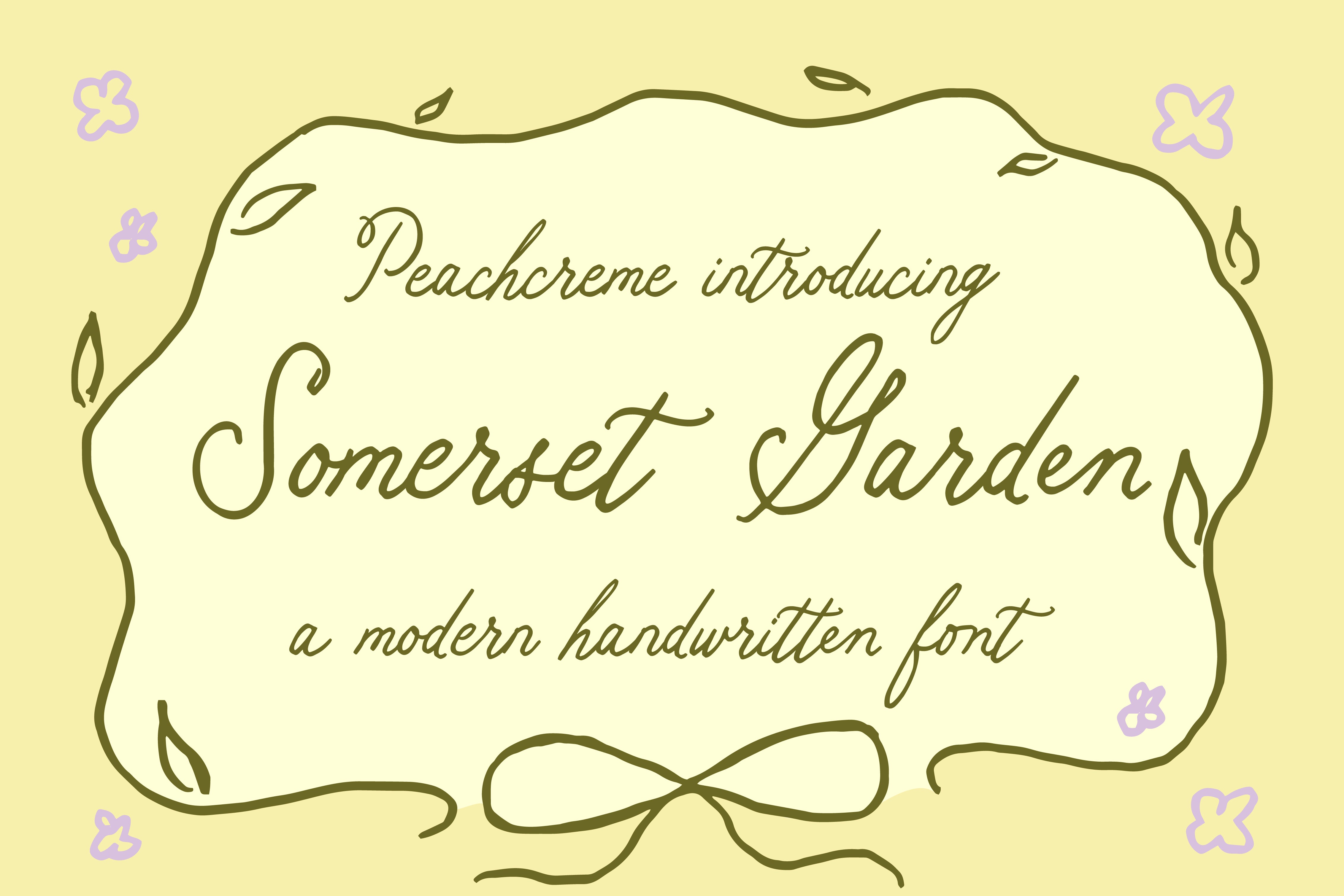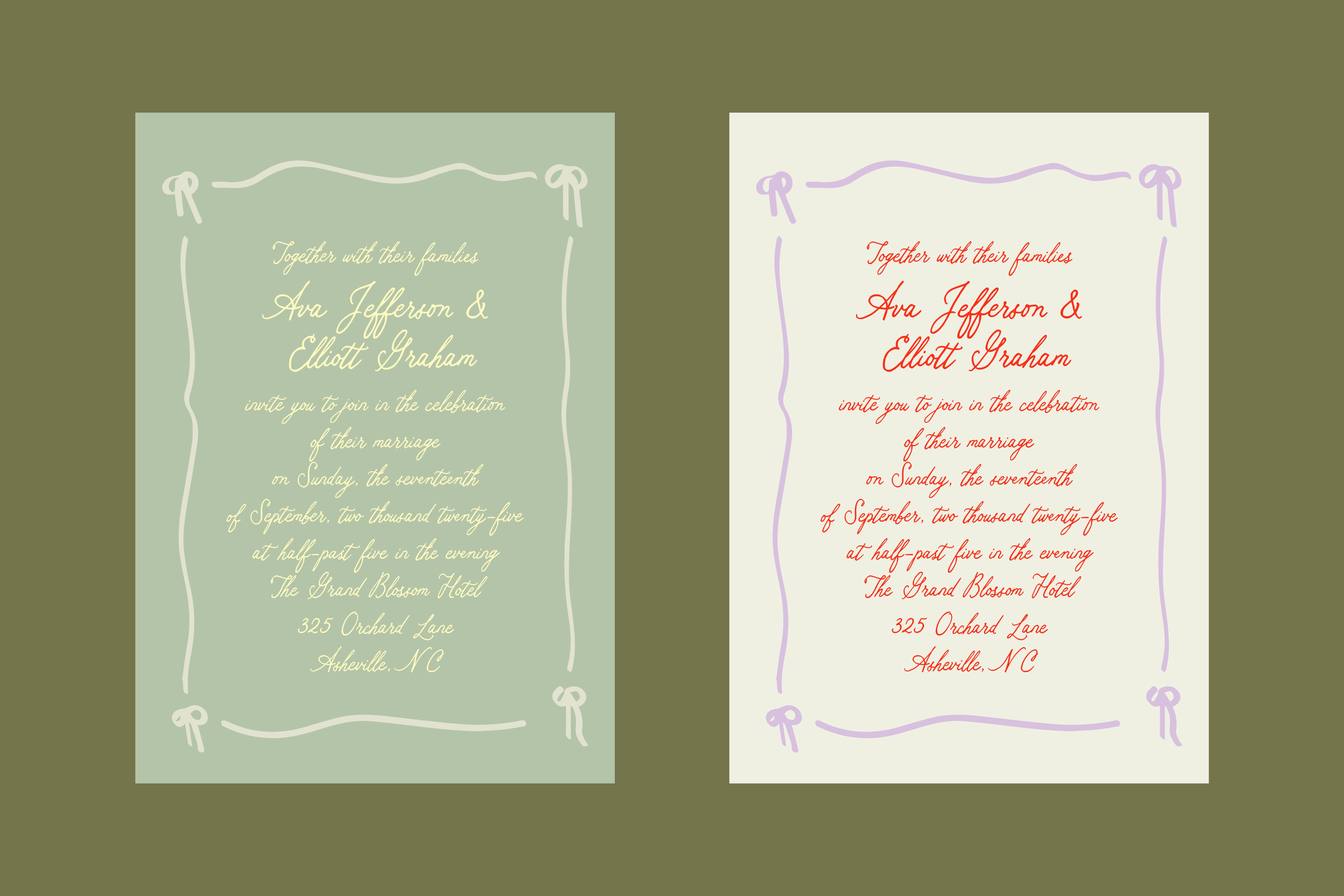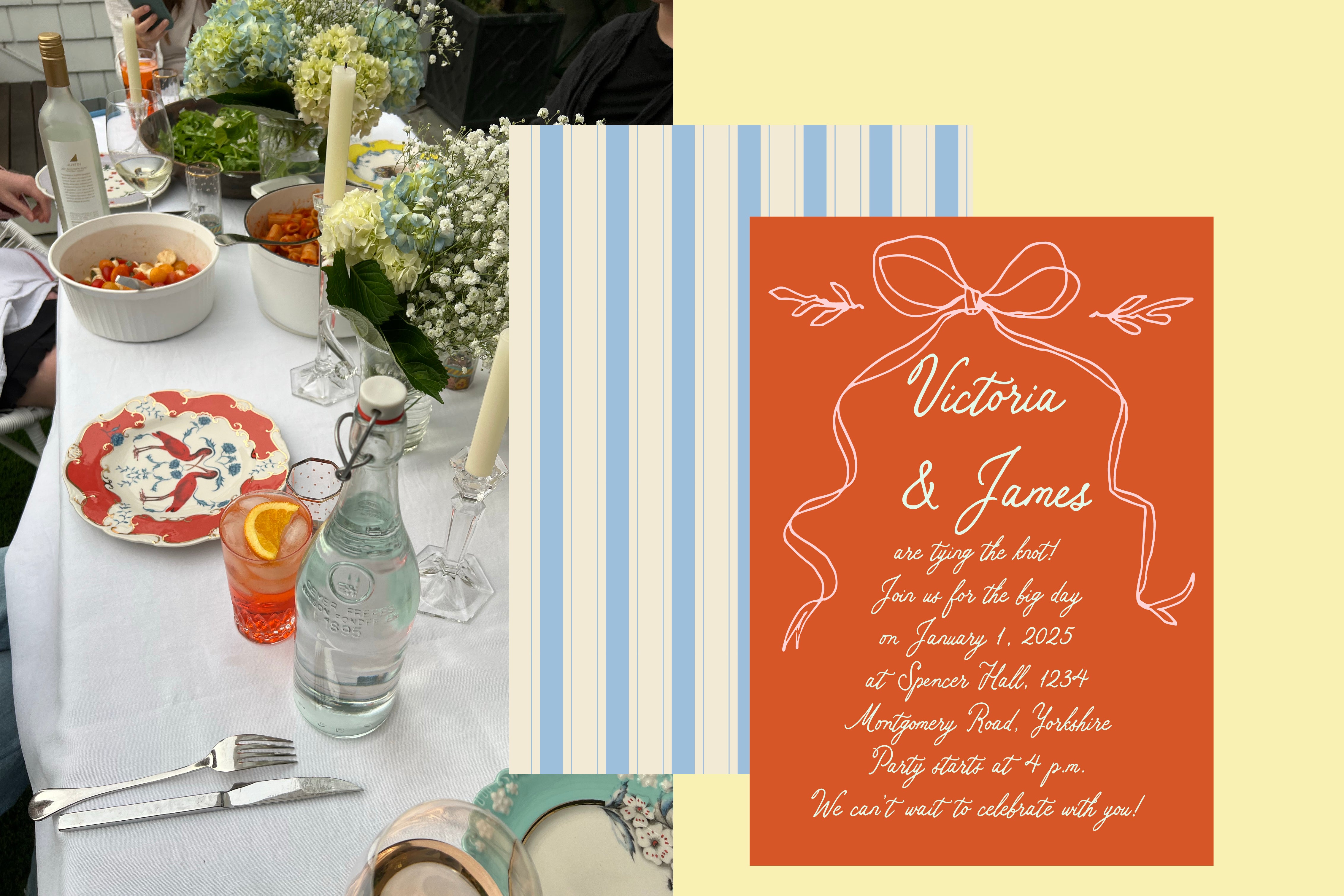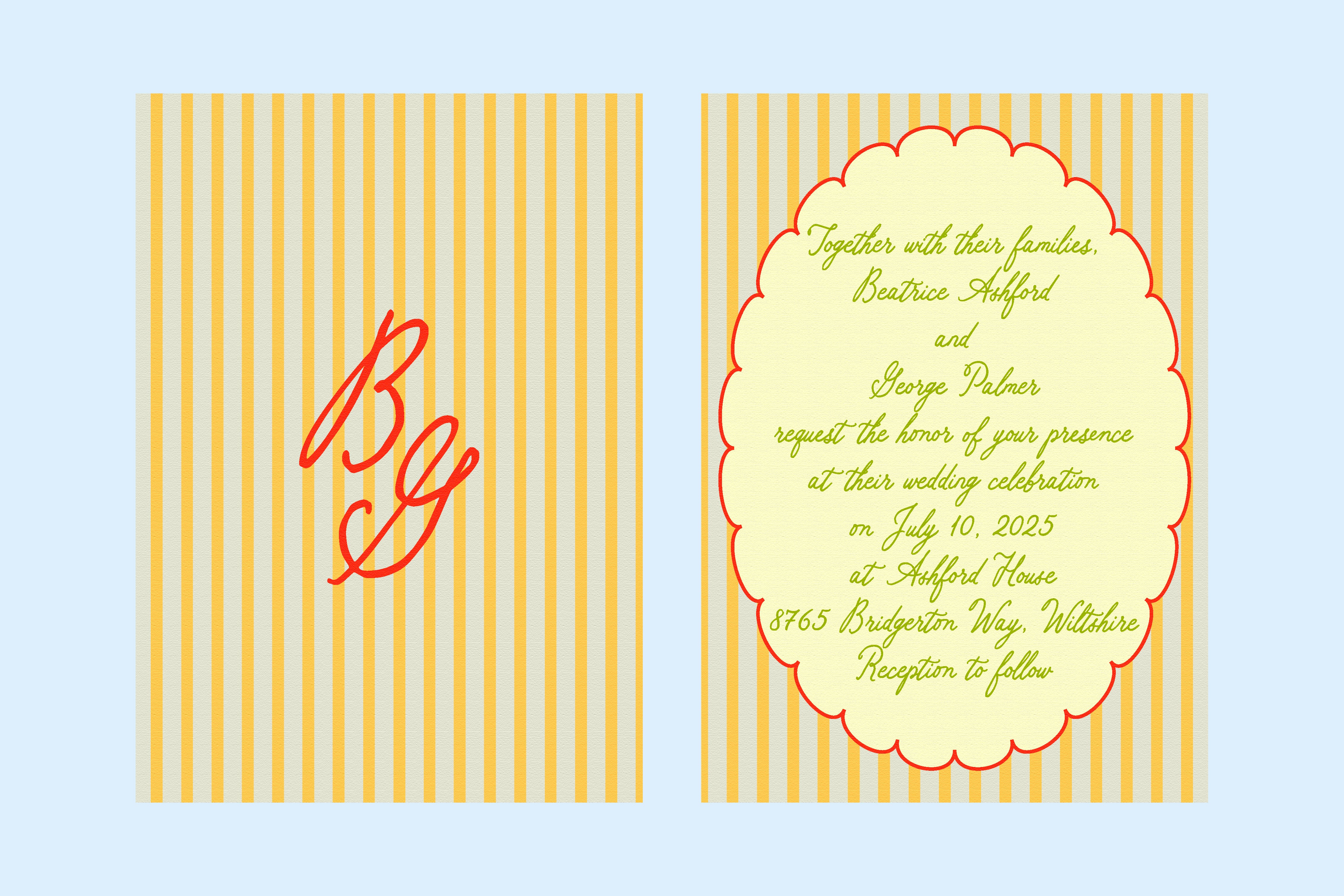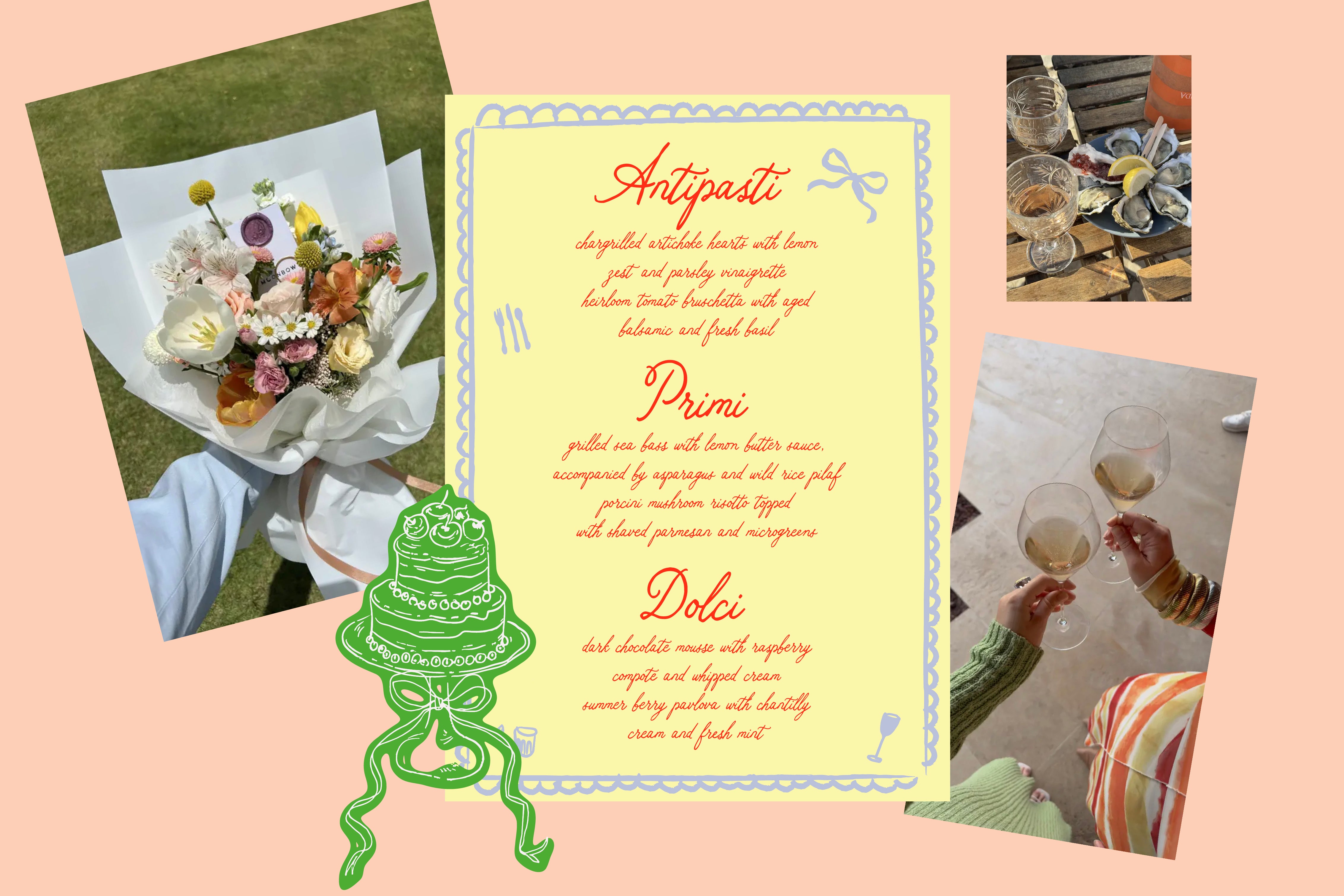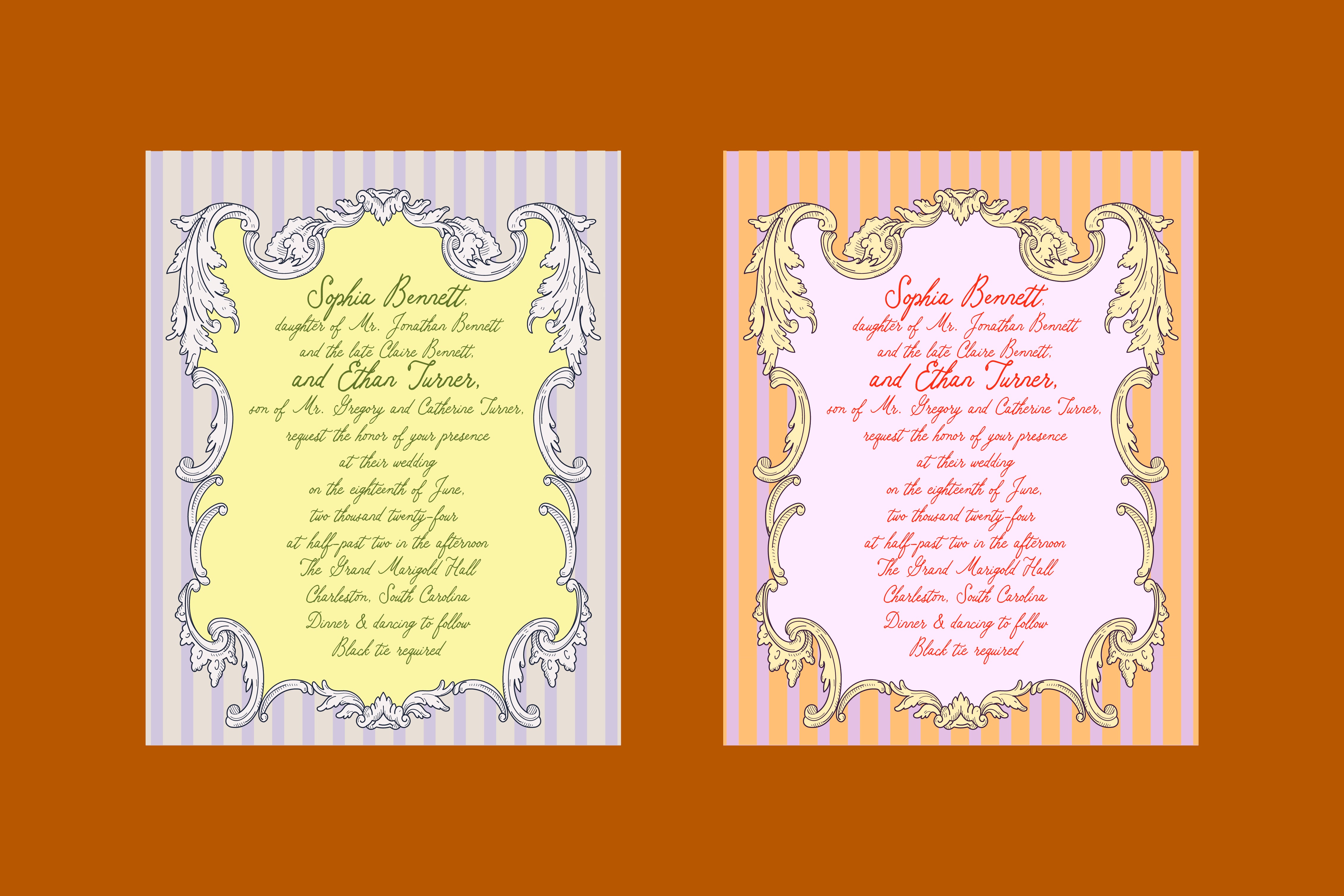
Somerset Garden // Handwritten font
Embrace the charm of imperfection with Somerset Garden, a delightfully quirky handwritten font. This font captures the essence of playful penmanship, perfect for adding a unique touch to your creative projects. Whether you're designing wedding invitations, greeting cards, or personal branding, Somerset Garden brings a whimsical and personal feel to your work.